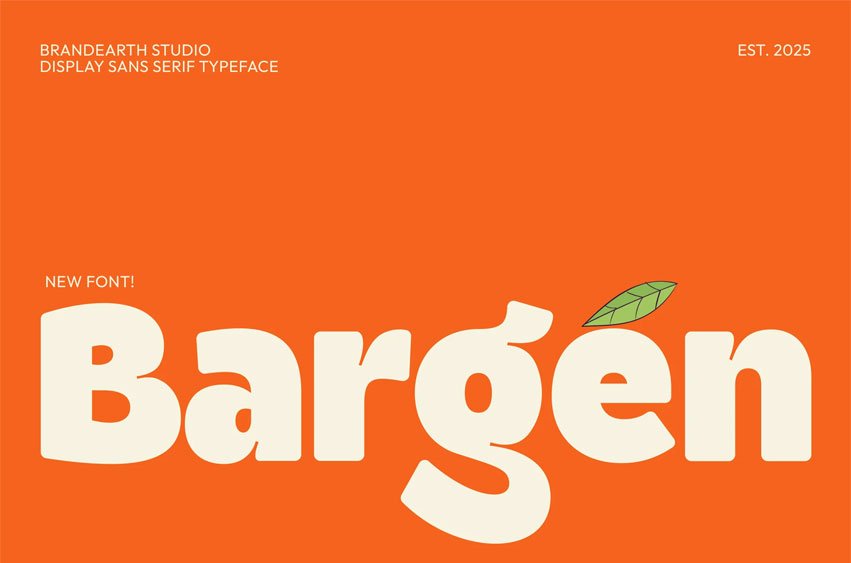
Bargen Font is a bold and playful sans-serif font designed to bring a friendly and approachable vibe to your projects. Its rounded shapes and smooth curves create a sense of warmth, making it ideal for designs that need to feel inviting and energetic. The font strikes a perfect balance between fun and modern style, ensuring it looks clean while still carrying personality.
This typeface is especially effective in large-scale use such as posters, banners, headlines, and packaging, where its bold letterforms grab attention instantly. With its casual yet professional look, Bargen works beautifully across both digital and print media.
Relevance and Use Cases is perfect for Brand identity, packaging design, food and beverage branding, children’s book covers, event posters, casual merchandise, social media graphics, café menus, organic product labels, lifestyle promotions, modern advertising, creative campaigns, eco-friendly themes, outdoor events, summer posters, and joyful branding projects.